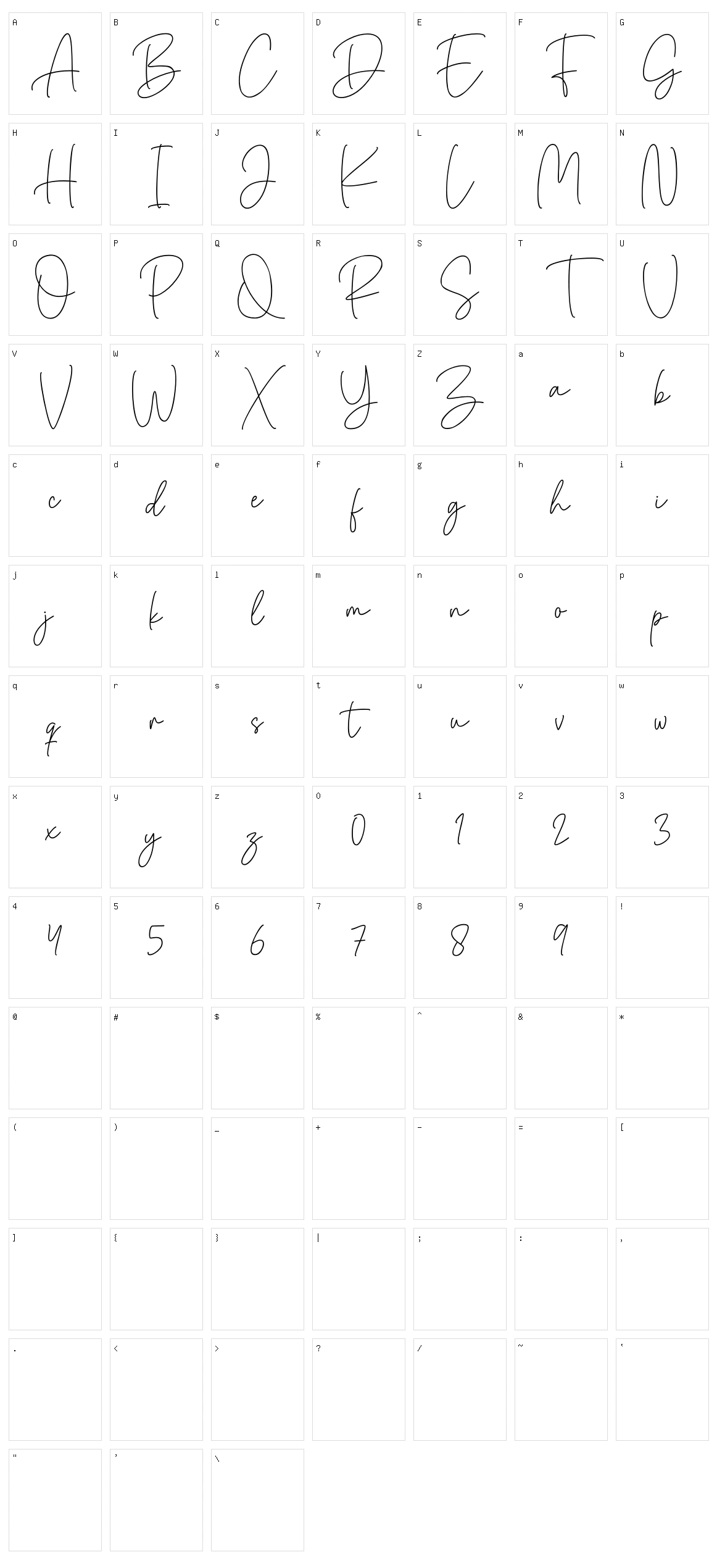
The free font Bellinda Christina is carefully designed by Bluestype Studio, showcasing a thoughtful balance of creativity and usability and falls under the Script font style. When you download the ZIP file, it contains only 63.22 KB of font files, making it lightweight and quick to download. Please review the license details below to understand permitted usage and distribution rights. If license information is not available, we recommend using this font for personal projects only or contacting the author directly for commercial usage permissions.